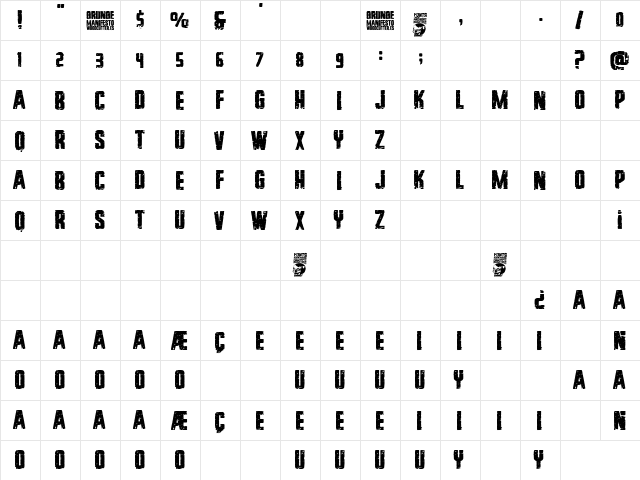
Grunge Manifesto Regular
| Designer | Woodcutter Manero |
Design Context for Grunge Manifesto Typeface
Grunge Manifesto embraces imperfection — its rough, textured character adds raw authenticity to designs that want to feel lived-in and unconventional.
A strong fit for alternative music projects, graffiti-adjacent design, and anything that deliberately resists polish.
Pro Tip: Use Grunge Manifesto at larger sizes where the texture and irregularity of each letterform can be clearly seen — it loses its character at small sizes.